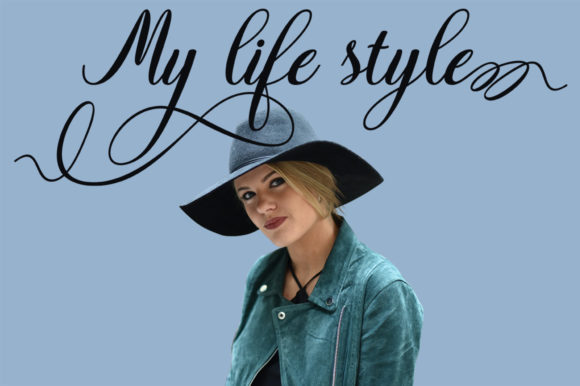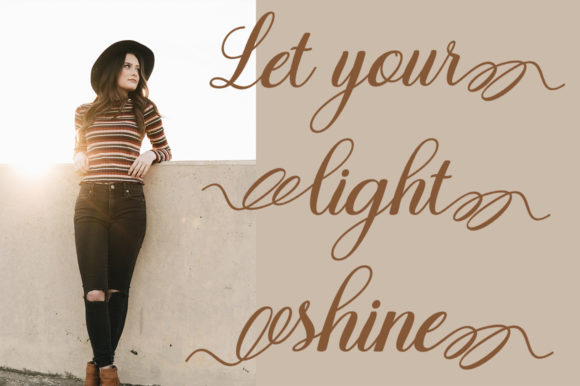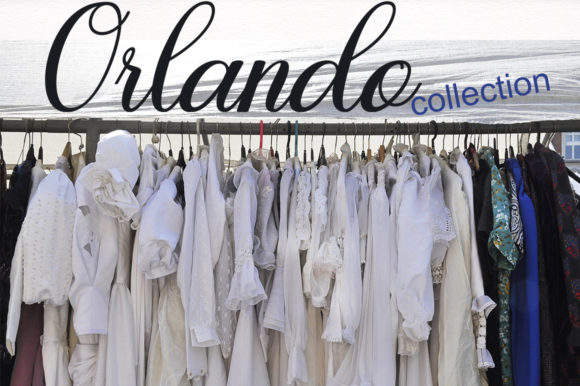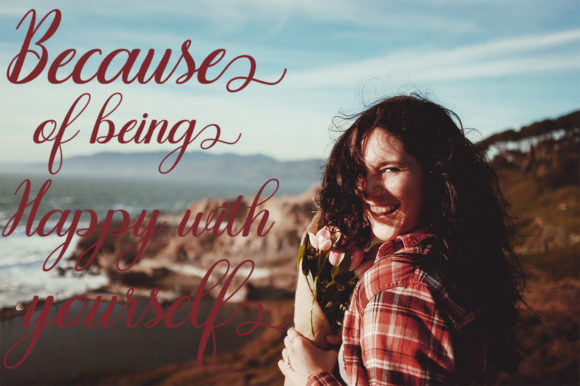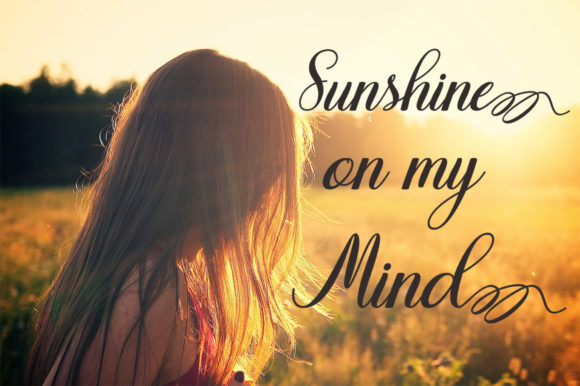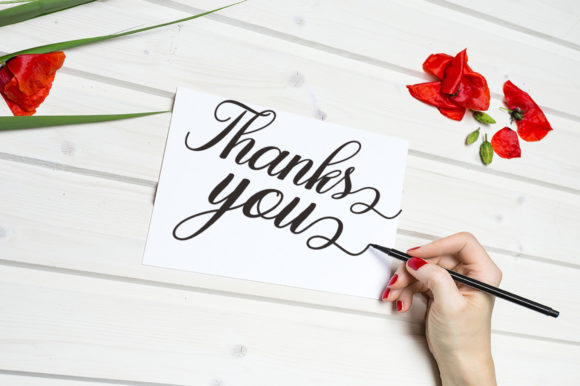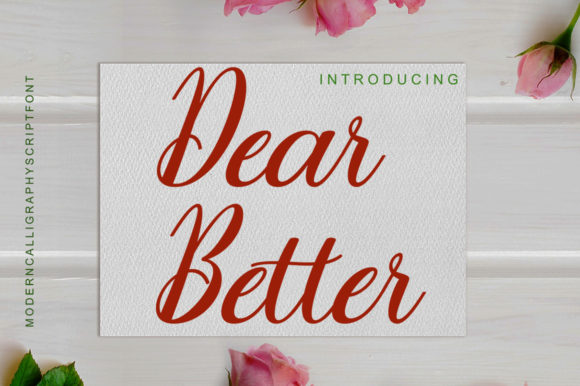
Discover the Elegance of Dear Better Font: Elevate Your Designs with a Timeless Touch
In the world of typography, fonts play a crucial role in conveying messages, expressing emotions, and creating a lasting impression. For designers, crafters, and anyone looking to add a personal touch to their projects, finding the right font can be a game-changer. This is where Dear Better Font comes into play, a beautifully crafted, flowing handwritten font that is about to revolutionize your design endeavors.
The Charm of Dear Better Font
Dear Better Font is described by an elegant touch, making it perfect for those who appreciate the finer things in life. Its incredibly distinct and timeless style is designed to captivate audiences and leave a lasting impression. Whether you’re working on a branding project, crafting a personal journal, or creating beautiful artwork, Dear Better Font is the perfect companion.
What Makes Dear Better Font Stand Out?
- PUA Encoding: Dear Better Font is PUA (Private Use Area) encoded, which means you can access all of the glyphs and swashes with ease. This feature allows for greater flexibility and creativity in your designs.
- Elegant and Flowing: The font’s elegant and flowing script is perfect for creating beautiful, eye-catching designs that demand attention.
- Timeless Style: The timeless style of Dear Better Font ensures that your designs will remain relevant and stylish for years to come.
- Distinctive: The font’s distinct style sets it apart from other fonts, making it perfect for those looking to create unique and memorable designs.
Dear Better Font is versatile and can be used for a wide range of projects, including:
- Branding: Create stunning logos, business cards, and letterheads that reflect your brand’s personality.
- Journaling: Add a personal touch to your journal or diary with beautiful, flowing script.
- Artwork: Use Dear Better Font to create stunning artwork, quotes, and posters that showcase your creativity.
- Wedding and Event Planning: Create beautiful wedding invitations, menus, and event signage that will leave a lasting impression on your guests.
Why Choose Dear Better Font?
With so many fonts available, why choose Dear Better Font? Here are just a few reasons:
- Unique Style: Dear Better Font offers a unique and distinctive style that will set your designs apart.
- Timeless Appeal: The font’s timeless style ensures that your designs will remain stylish and relevant for years to come.
Dear Better Font is a beautiful, elegant, and flowing handwritten font that is perfect for designers, crafters, and anyone looking to add a personal touch to their projects. With its unique style, ease of use, and timeless appeal, it’s an excellent choice for a wide range of projects. Whether you’re looking to create stunning branding, beautiful artwork, or simply add a personal touch to your journal, Dear Better Font is the perfect companion. So why wait? Fall in love with Dear Better Font and elevate your designs to new heights!